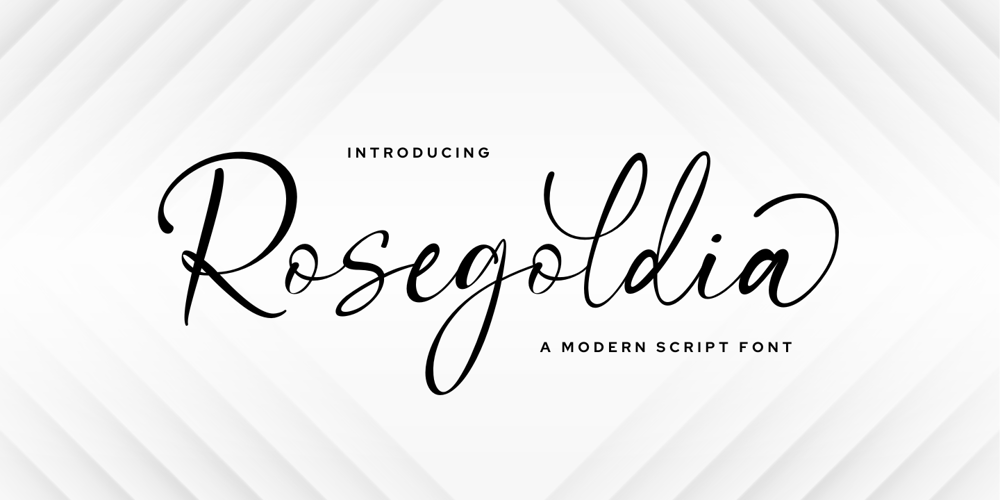
Rosegoldia Font Family was designed by Muhamad Yusron Billah and published by Sronstudio. Rosegoldia contains 1 styles and family package options. “Rosegoldia” is a modern script font that blends elegance with contemporary style. With its sleek letterforms and graceful curves, it adds a touch of sophistication to your designs. Perfect for branding, logos, and any project that requires a modern script font, “Rosegoldia” brings a sense of refined beauty to your work